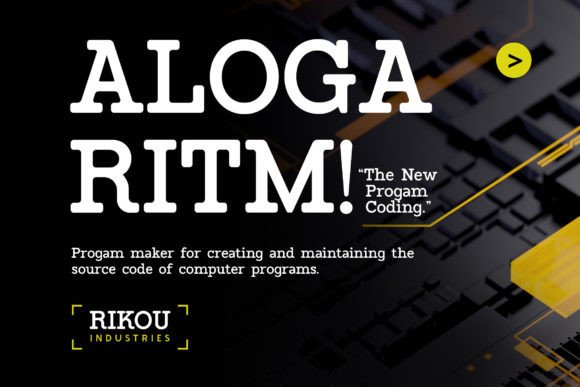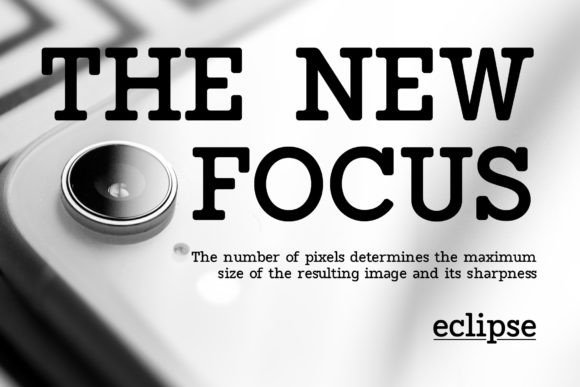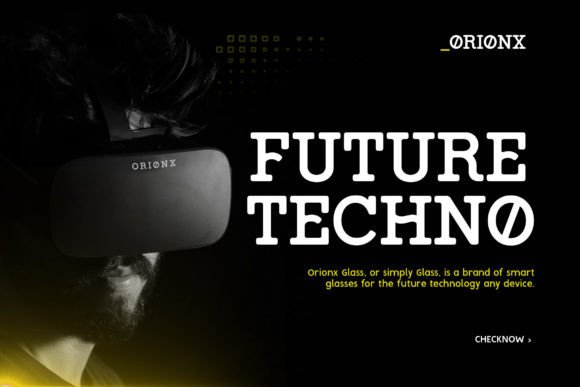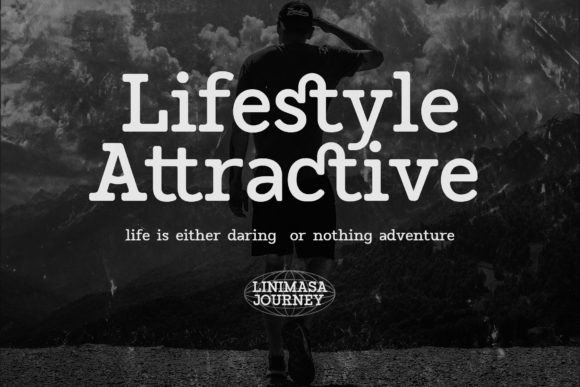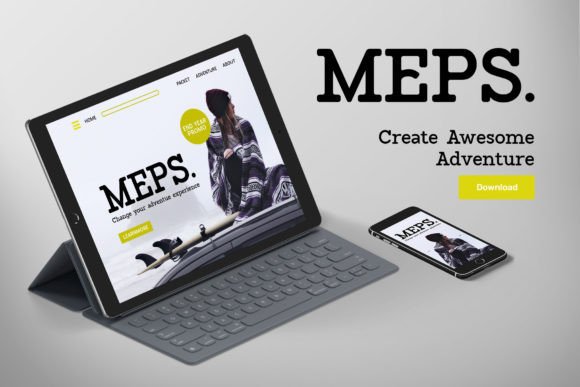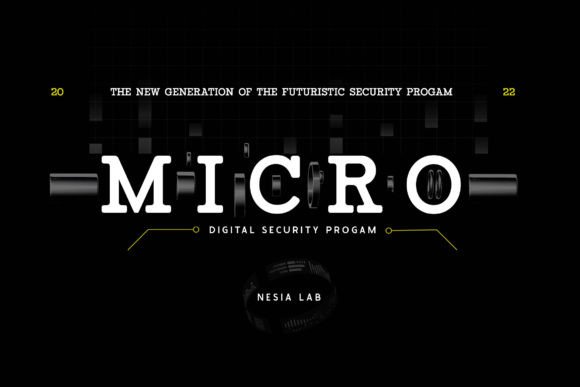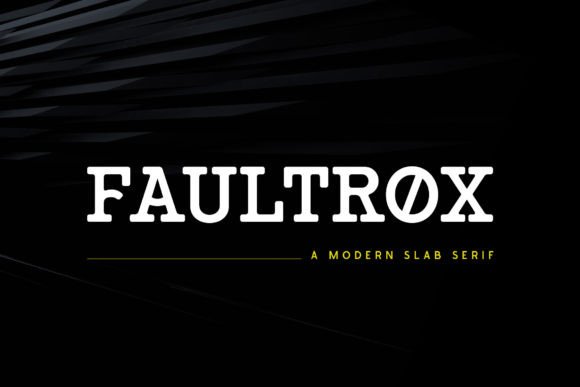
Introducing Faultrox Font: The Ultimate Modern Slab Serif for Timeless Designs
Are you on the hunt for a font that exudes classic charm with a modern twist? Look no further than Faultrox Font, a stunning slab serif typeface that’s perfect for designers and crafters seeking to create timeless and captivating designs. In this article, we’ll dive into the world of Faultrox, exploring its features, uses, and benefits, as well as provide inspiration for incorporating it into your next project.
What is Faultrox Font?
Faultrox is a modern slab serif font that’s been carefully crafted to bring a touch of vintage elegance to your designs. Its unique blend of classic and contemporary elements makes it an ideal choice for a wide range of projects, from logo and branding to editorial design, advertising, and more. With its sturdy and dependable appearance, Faultrox is sure to make a lasting impression on your audience.
Key Features of Faultrox Font
- Modern Slab Serif Design: Faultrox boasts a sleek and modern slab serif design that’s perfect for creating bold and eye-catching text.
- Vintage Classic Inspiration: The font draws inspiration from classic typography, giving it a timeless and sophisticated feel.
- High Versatility: Faultrox is incredibly versatile, making it suitable for a wide range of projects, from logos and branding to editorial design and advertising.
- Elegant and Refined: The font’s elegant and refined appearance makes it perfect for designs that require a touch of sophistication.
Uses for Faultrox Font
Faultrox is an incredibly versatile font that can be used for a variety of projects, including:
- Classic Logo and Branding: Create a lasting impression with a bold and eye-catching logo that showcases your brand’s personality.
- Editorial Design: Use Faultrox to add a touch of elegance to your magazine, newspaper, or book designs.
- Advertising Design: Make your ads stand out with Faultrox’s bold and attention-grabbing appearance.
- Ticket Design: Create stunning ticket designs for events, concerts, or festivals.
- Stationery Design: Add a touch of sophistication to your stationery, including business cards, letterheads, and envelopes.
- Blog Design: Use Faultrox to create a visually appealing blog that showcases your content in style.
- Music and Men’s Skincare: Faultrox is perfect for designs related to music, men’s skincare, and other industries that require a bold and modern aesthetic.
Benefits of Using Faultrox Font
So, why choose Faultrox for your next project? Here are just a few benefits of using this amazing font:
- Unique and Memorable: Faultrox’s unique design ensures that your text will stand out and be remembered.
- Timeless Appeal: The font’s classic inspiration ensures that your designs will remain timeless and relevant for years to come.
- Ease of Use: Faultrox is incredibly easy to use, making it perfect for designers of all skill levels.
- High Readability: The font’s clear and legible design ensures that your text will be easy to read, even at small sizes.
Still not sure how to use Faultrox in your designs? Here are a few ideas to get you started:
- Combine with Images: Pair Faultrox with stunning images to create visually appealing designs that capture your audience’s attention.
- Experiment with Colors: Try out different color combinations to see how Faultrox looks in various contexts.
- Use as a Title Font: Use Faultrox as a title font to add a touch of elegance to your designs.
- Mix with Other Fonts: Experiment with pairing Faultrox with other fonts to create unique and interesting typography.
In conclusion, Faultrox Font is an incredible modern slab serif typeface that’s perfect for designers and crafters seeking to create timeless and captivating designs. With its unique blend of classic and contemporary elements, high versatility, and ease of use, Faultrox is sure to become a staple in your font collection. So why wait? Download Faultrox today and start creating stunning designs that will leave a lasting impression on your audience!